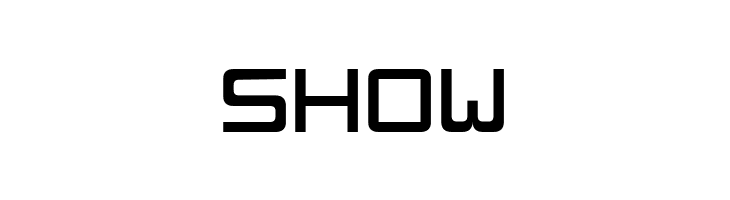
Confused Root Font
- Font: Confused Root
( Fonts by Zdenek Gromnica - www.futuremillennium.com )
A modern, geometric font with sharp edges and consistent spacing.